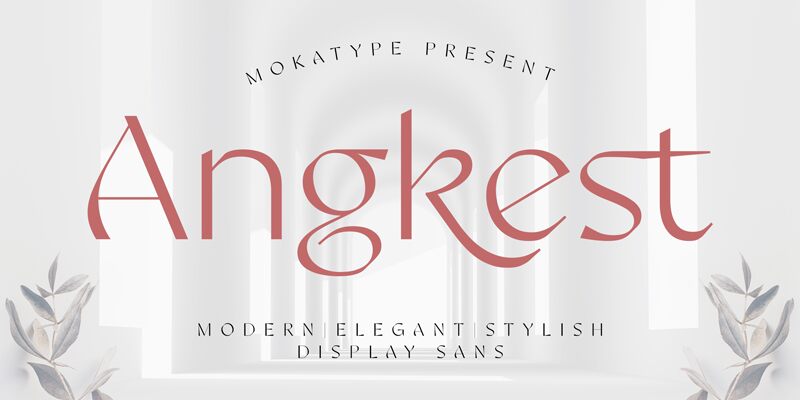
Angkest
Angkest, crafted by Moka Type Studio, is a font that commands attention with its elegant and sophisticated design. The characters exhibit a harmonious blend of modernity and classic charm, marked by strikingly unique curves and an airy demeanor. Each letter flows seamlessly into the next, creating a sense of fluidity that is visually captivating.
The refined aesthetic of Angkest makes it an excellent choice for high-end branding, luxurious invitations, and editorial designs where elegance is paramount. Its distinctive style ensures that any text set in Angkest will stand out with grace and poise, making it a versatile asset for designers seeking to add a touch of sophistication to their projects.